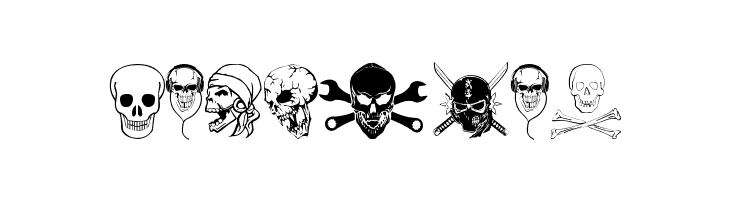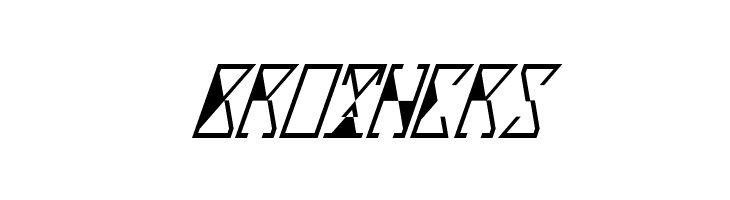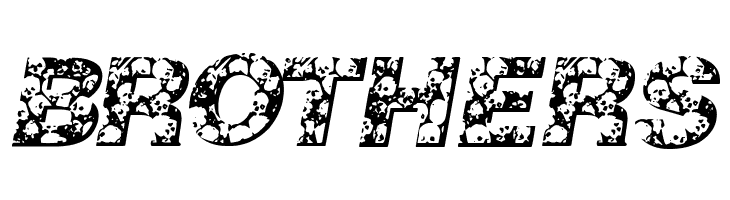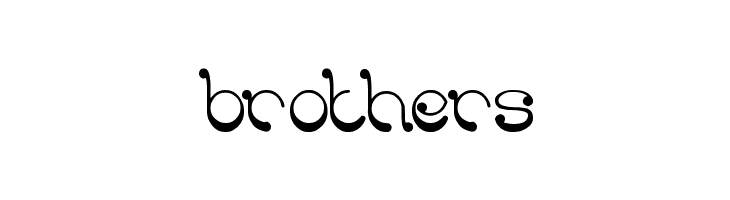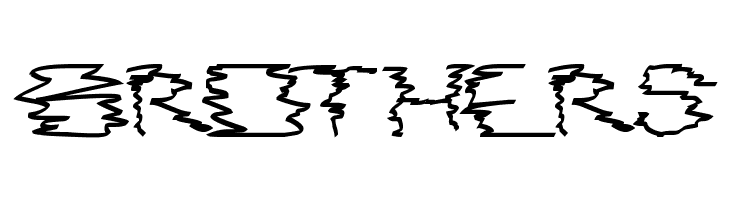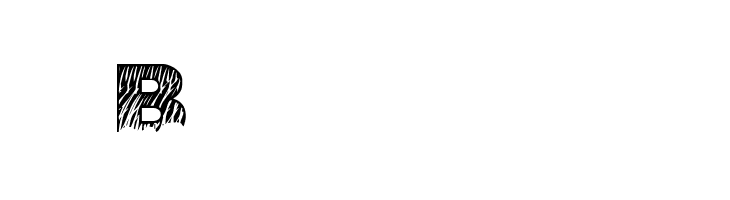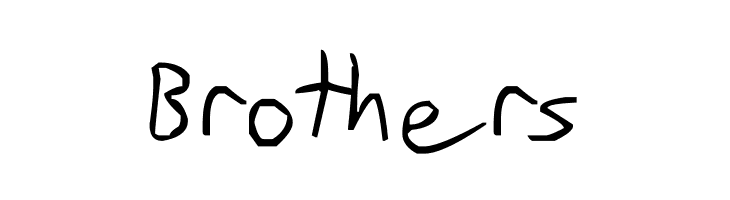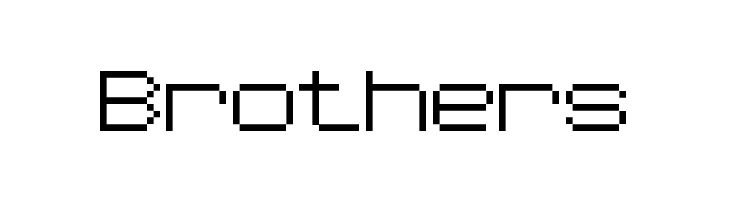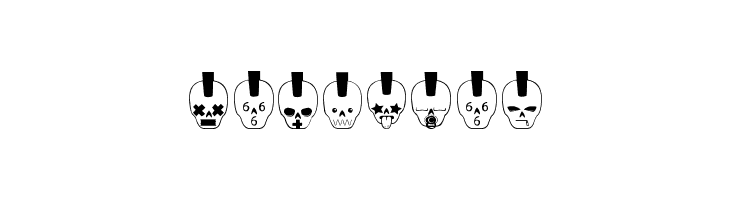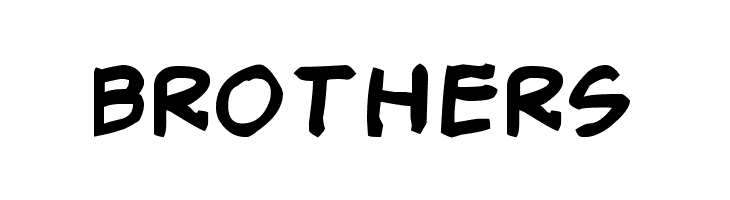
• skribler Regular
( Tomm Warham - www.TommWarham.com )
A playful, hand-drawn font with a scribbled texture and dynamic style.
• Skuer Regular
( Valdet Hajdari - www.behance.net/valdethajdari )
A bold, geometric font with thick, uniform strokes and a blocky appearance.
• skulldco
A decorative font featuring unique skull illustrations with a punk aesthetic.
• skulldco
A collection of decorative skull icons with a punk aesthetic.
• Skullvetica
A bold, decorative font filled with intricate skull patterns.
• SKULLX
A display font made up of diverse skull and crossbones illustrations.
• Skwirl
( Chicken Billy - www.chickenbilly.com )
A playful, handwritten font with dynamic and irregular strokes.
• Sky liner
A flowing, cursive font with elegant, connected letters and a slight right slant.
• Sky Regular
• Slabby Prices Italic
( Font by Jayvee D. Enaguas - grandchaos9000.deviantart.com )
A bold, italic slab serif font with a strong and dynamic presence.
• Slabby Prices Regular
( Font by Jayvee D. Enaguas - grandchaos9000.deviantart.com )
A bold and robust slab serif font with strong, block-like serifs.
• SlashKing
A dynamic, slashed font with a textured and energetic appearance.
• Sleeping in Lecture
A bold, 3D hand-drawn font with a playful, dynamic style.
• Slightly Intoxicated
A bold, textured font with a distressed, vintage appearance.
• SlightRocking
A bold, jagged font with an edgy, rebellious style.
• Slim Jim
A casual, handwritten font with a playful and informal style.
• Slim Stradiva Regular
A geometric, angular font with a modern and futuristic style.
• Slim Stradiva Regular
• Slimeball
A playful, bold font with irregular, blob-like shapes and a fluid, organic style.